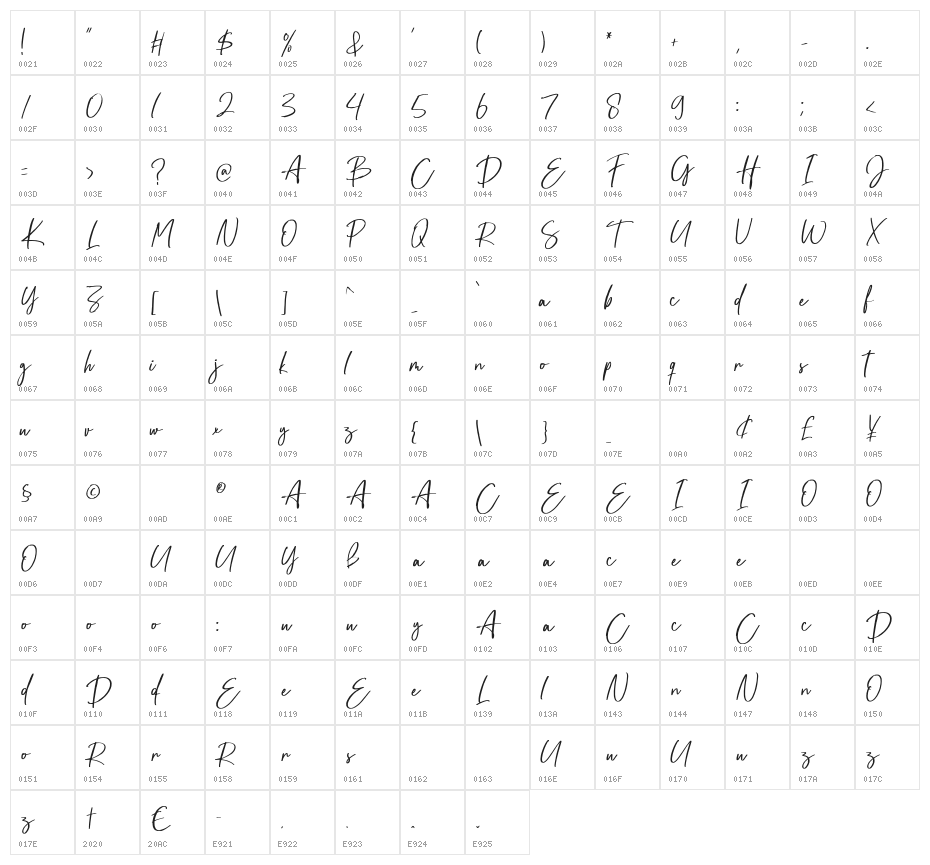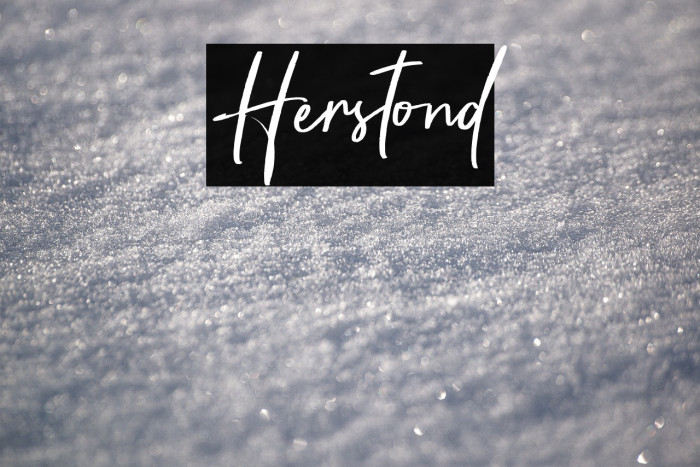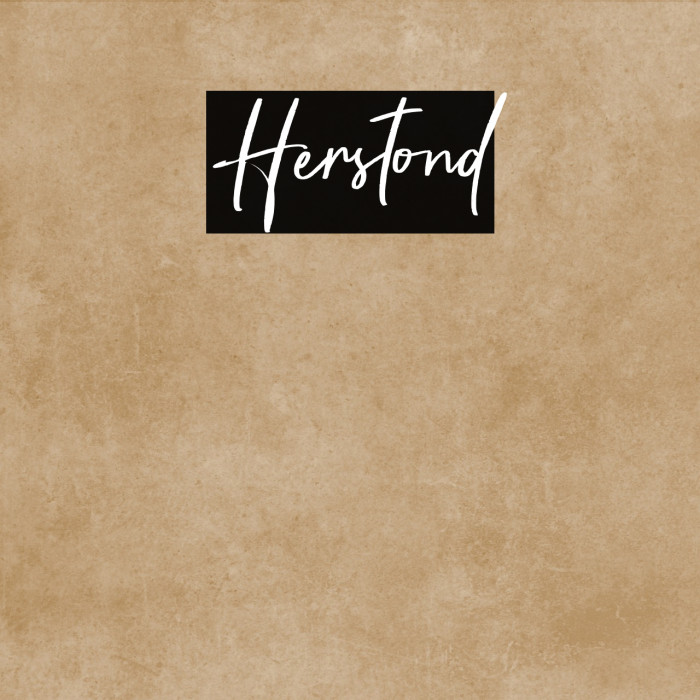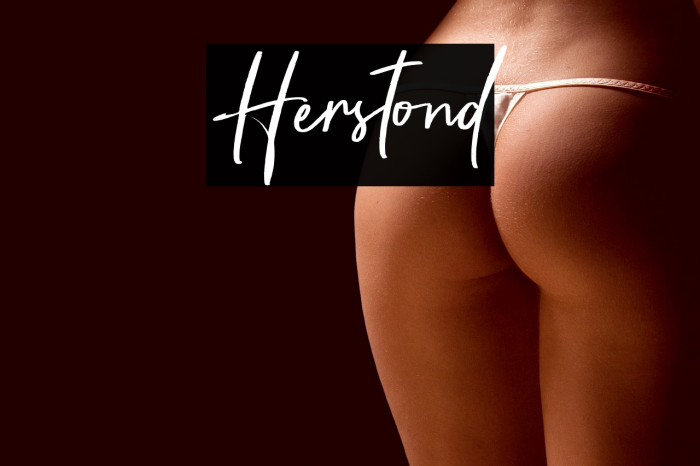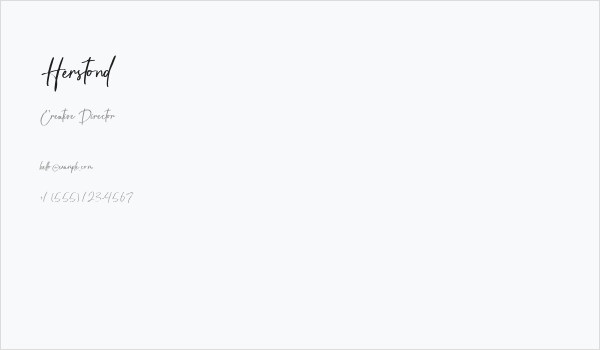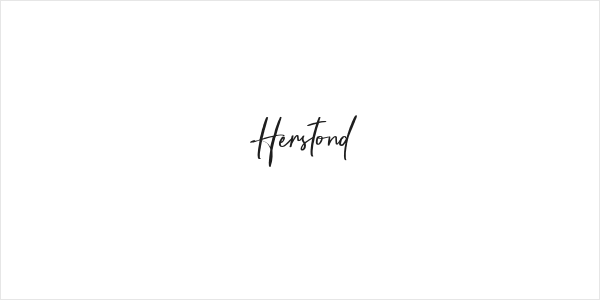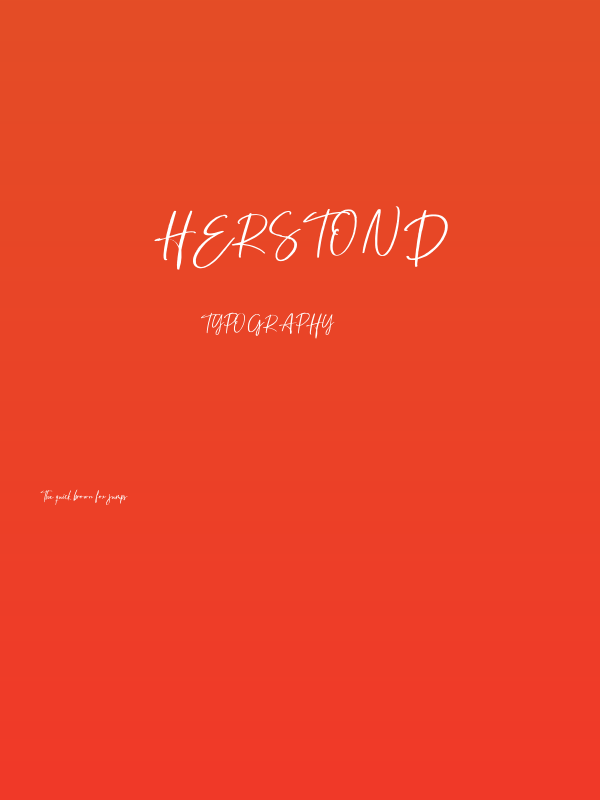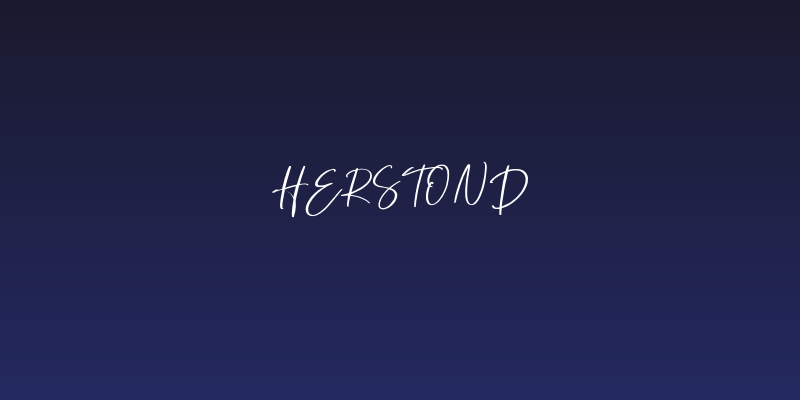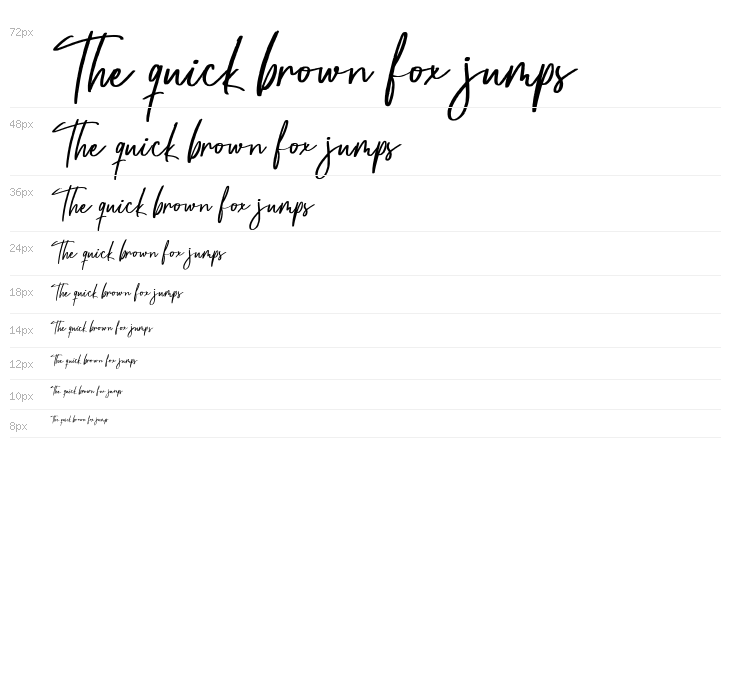
Herstond Font
Herstond Description
This font features a dynamic and flowing script style, characterized by its elegant and fluid strokes. The uppercase letters are tall and slightly slanted, giving a sense of movement and grace. The lowercase letters maintain a consistent flow, with some characters featuring loops and swashes that add to the overall decorative appeal. The numerals are distinct and maintain the same fluidity, making them easily readable. Special characters are integrated seamlessly, maintaining the font's cohesive style. This font is perfect for projects that require a personal touch, such as invitations, greeting cards, or branding materials.
| Proposed Projects | Ideal for invitations, greeting cards, branding, and decorative projects. |